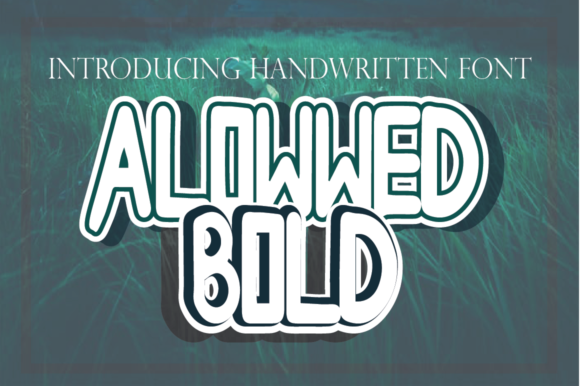
Step into a World of Wonder with Allowwedbold Font
Have you ever stared at a blank page, waiting for inspiration to strike? You’re not alone. Sometimes, all it takes is a single spark to set your creative juices flowing. For me, that spark was stumbling upon the Allowwedbold Font. Its unique blend of futuristic and mystical elements immediately captured my imagination.
Allowwedbold Font is a stunning display font that transports you to a realm of science fiction and fantasy. With its quirky charm, it’s the perfect addition to any project or design. Whether you’re creating a novel, a movie poster, or a video game, Allowwedbold Font is sure to elevate your work and leave a lasting impression.
For designers, Allowwedbold Font is a valuable asset that can help bring your most ambitious projects to life. Its versatility and character make it an excellent choice for anyone looking to add a touch of magic to their designs.
Key Features of Allowed Bold Font
- Font Family: Allowed Bold is a sans-serif font family, designed to be highly legible and versatile.
- Unique Characteristics: Allowed Bold features a unique blend of geometric and humanist elements, resulting in a clean and modern aesthetic.
- Weight and Style Options: Available in a range of weights, from light to extra-bold, allowing for nuanced typographic expression.
Designer Review: Allowwedbold Font
Overall, I was pleasantly surprised by Allowwedbold Font. Here are some of its standout features: ✨
- Unique aesthetic: Allowwedbold Font has a distinct, handcrafted feel that adds character to any design.
- Good legibility: Even at smaller font sizes, Allowwedbold remains easy to read.
- Limited language support: Allowwedbold Font only supports a limited range of languages, which may be a concern for global brands.
- No bold weights: While the font’s name suggests a bold variant, I found that the weight options are somewhat limited.
- No italic option: I missed the ability to add some flair to my designs with an italic version of the font.
Overall, Allowwedbold Font is a solid choice for designers looking for a unique, handcrafted feel. While it may not be perfect, its strengths make it a great addition to any design toolkit.
Getting the Most Out of Allowedbold Font
To get the most out of Allowedbold Font, consider the following tips:
- Use it for headings and titles to add emphasis and visual interest.
- Combine it with other fonts to create a unique and visually appealing typography.
- Experiment with different font sizes and styles to find the perfect balance for your design.
Allowedbold Font is commonly used for:
- Headings and titles in marketing materials and websites.
- Typography in logos and branding materials.
- Accent text in brochures and flyers.